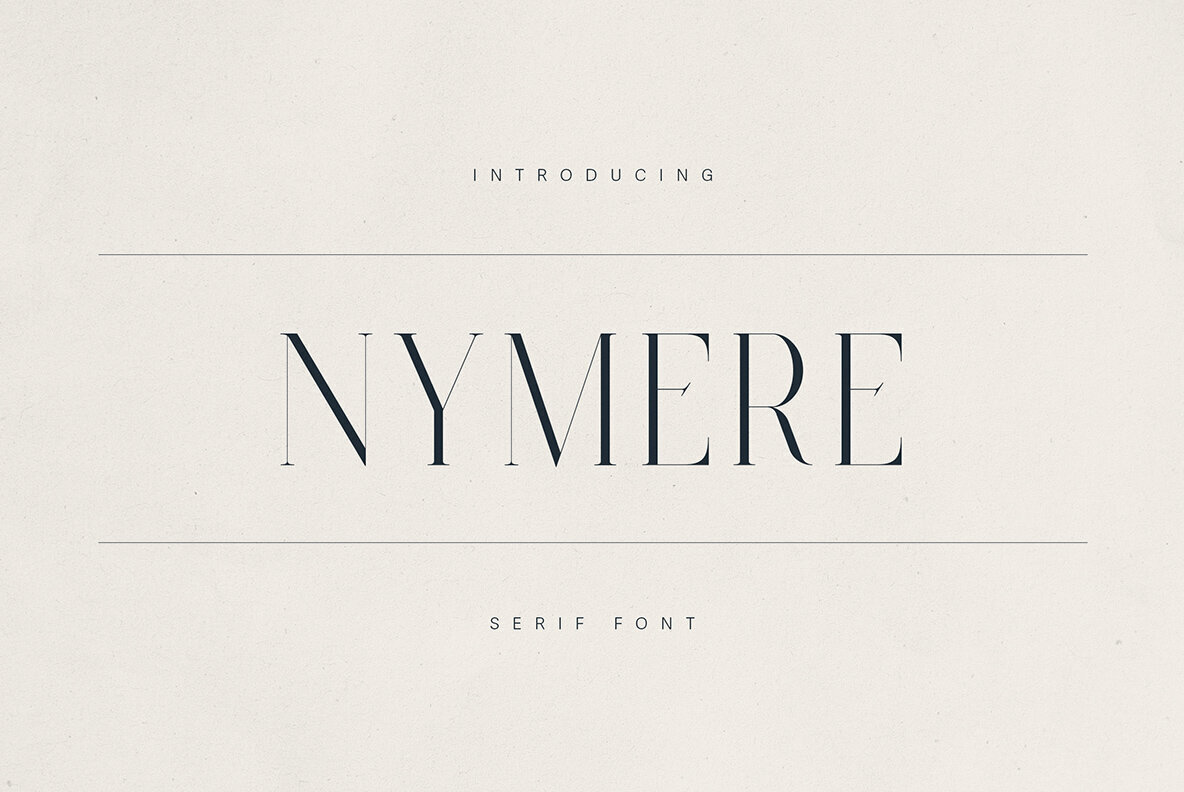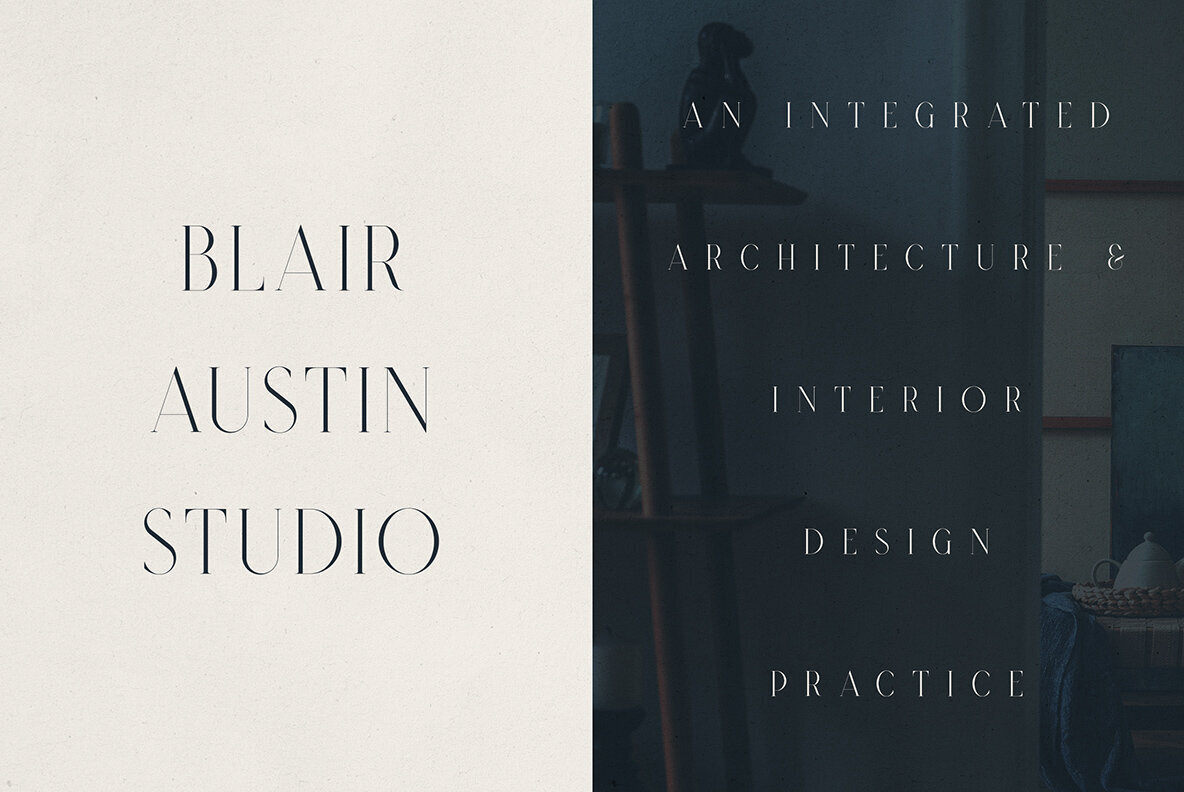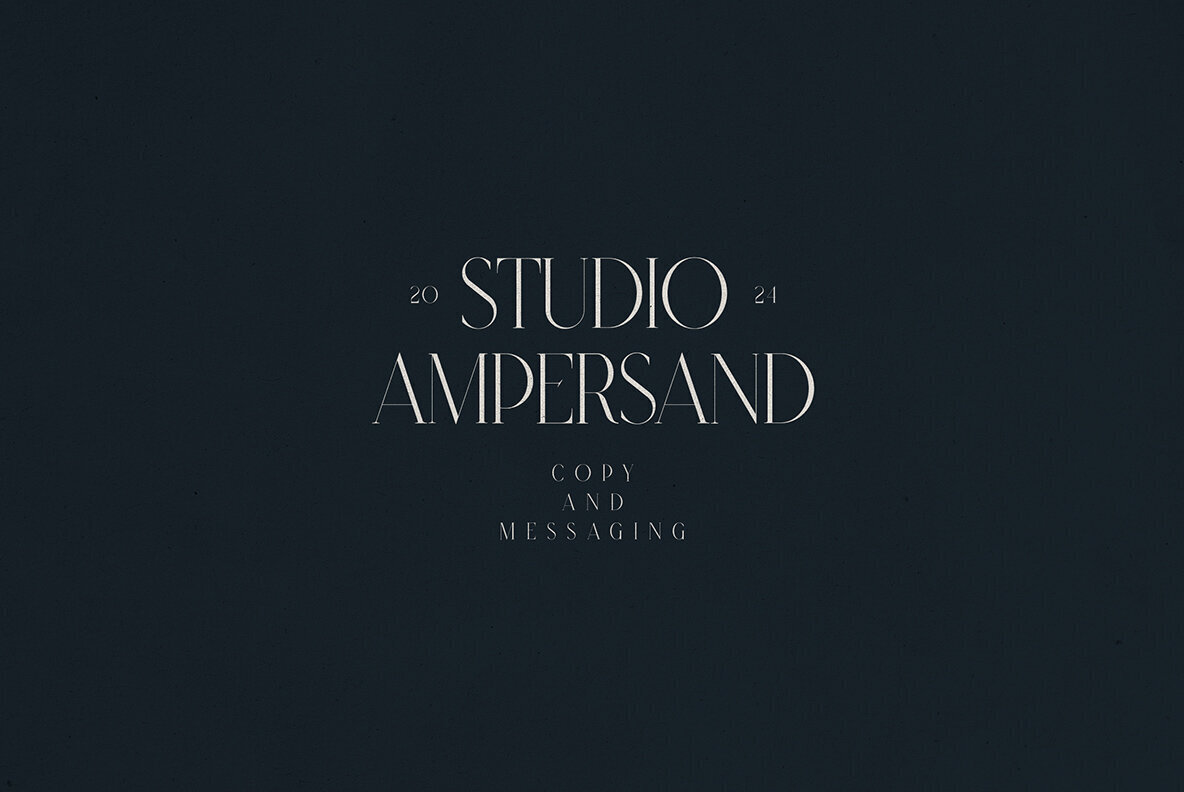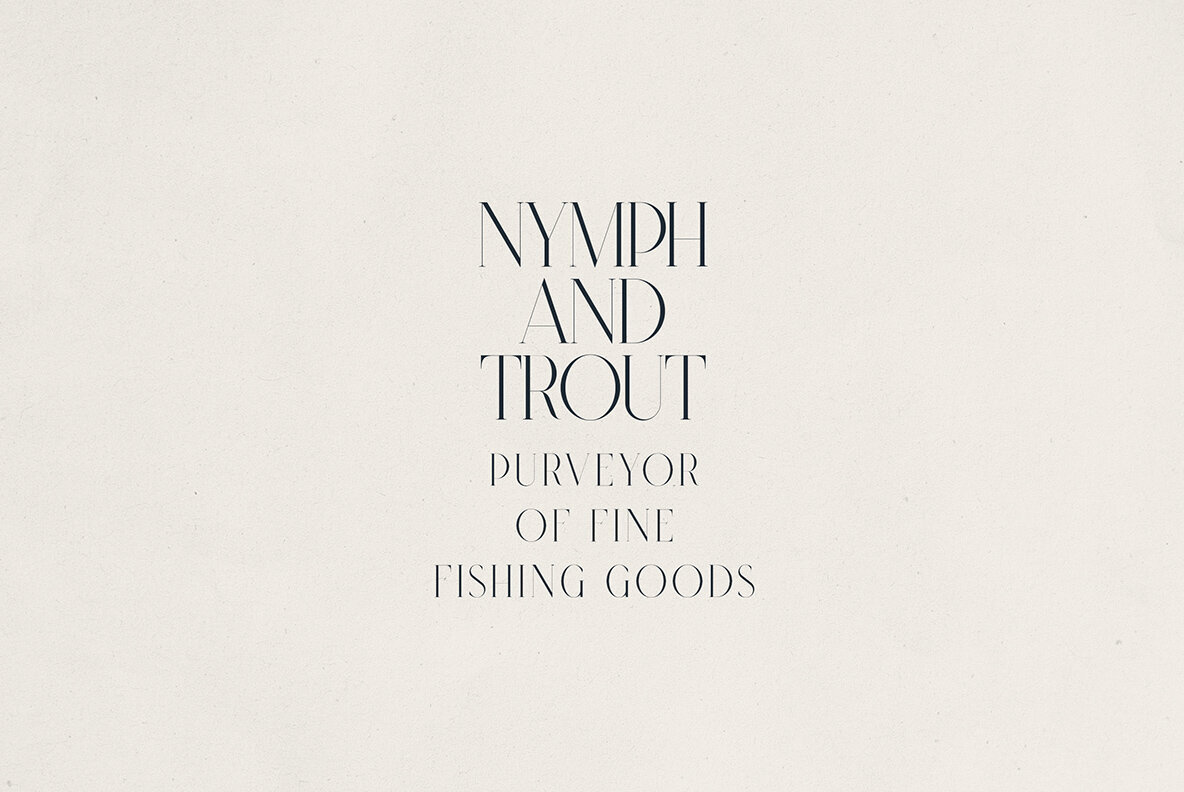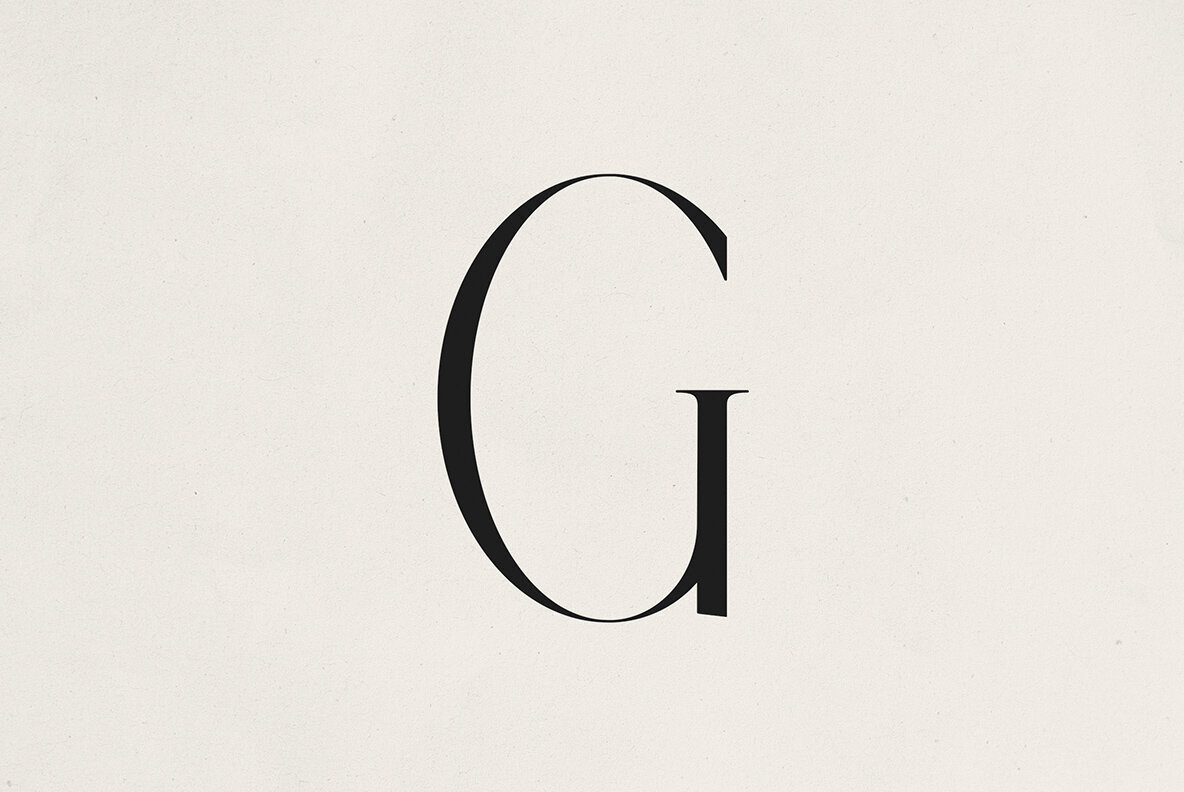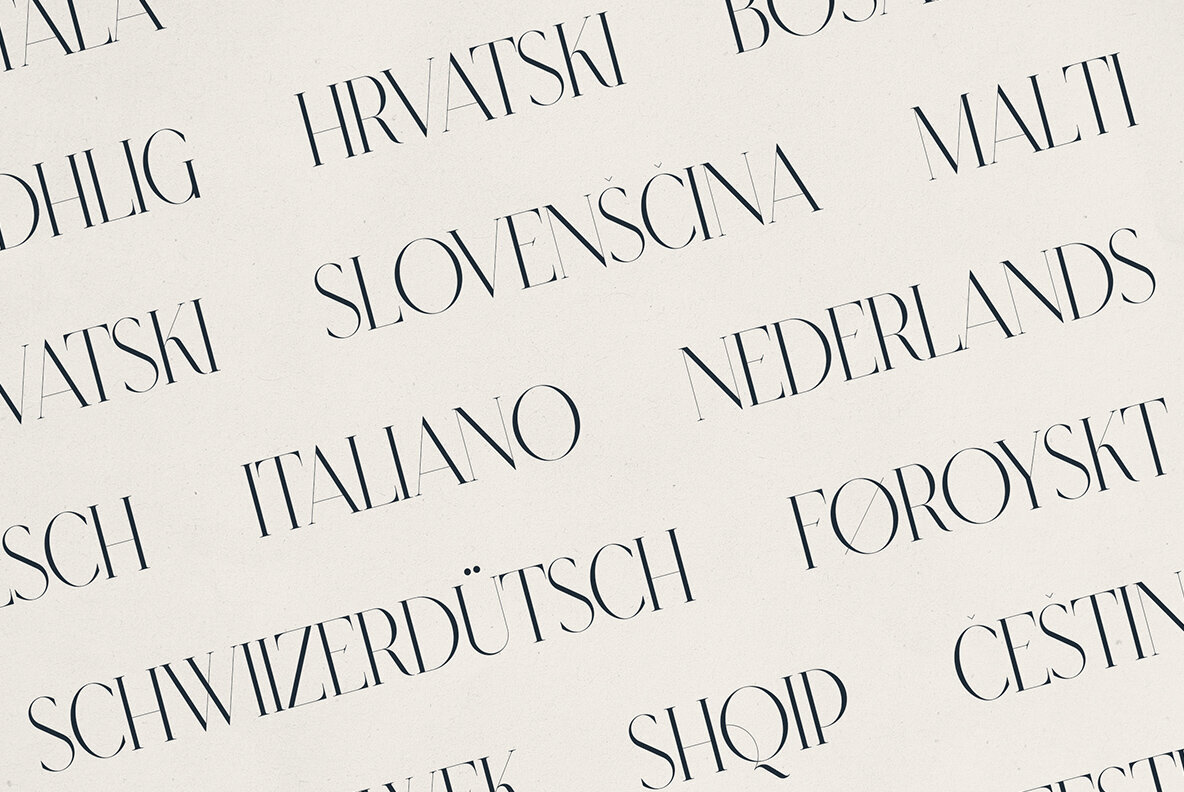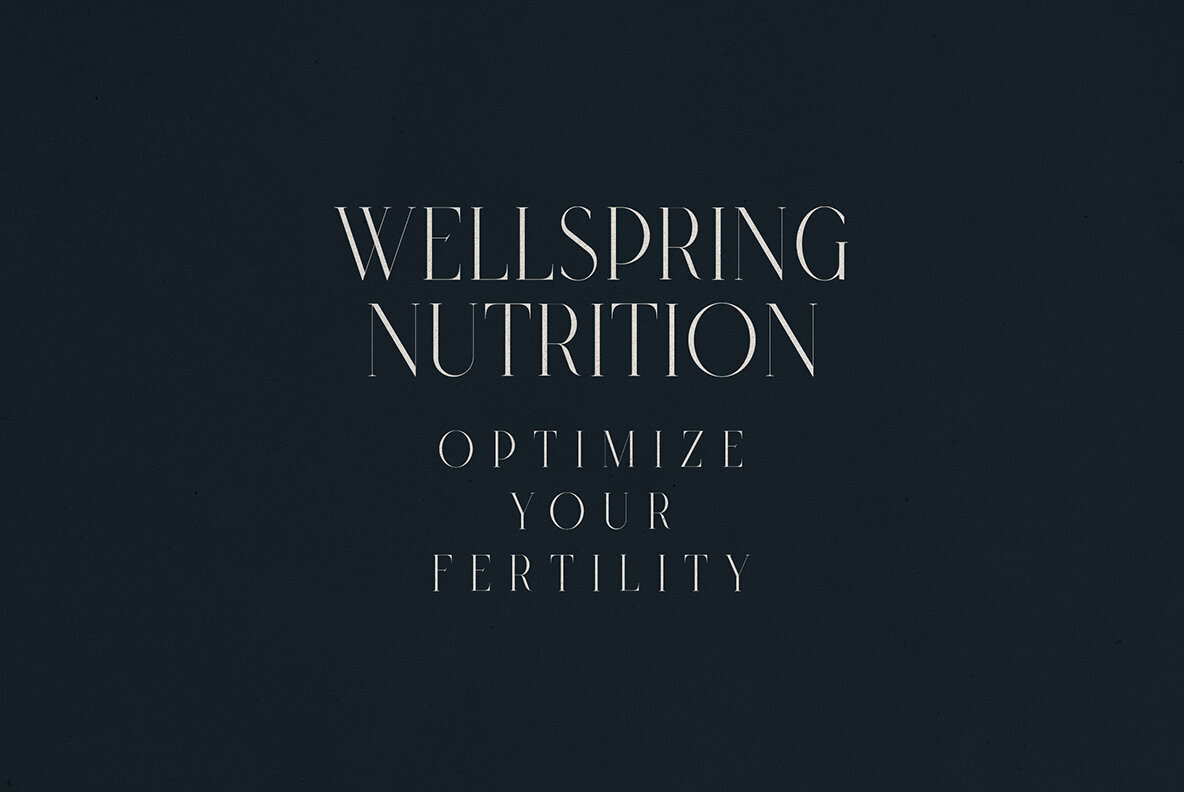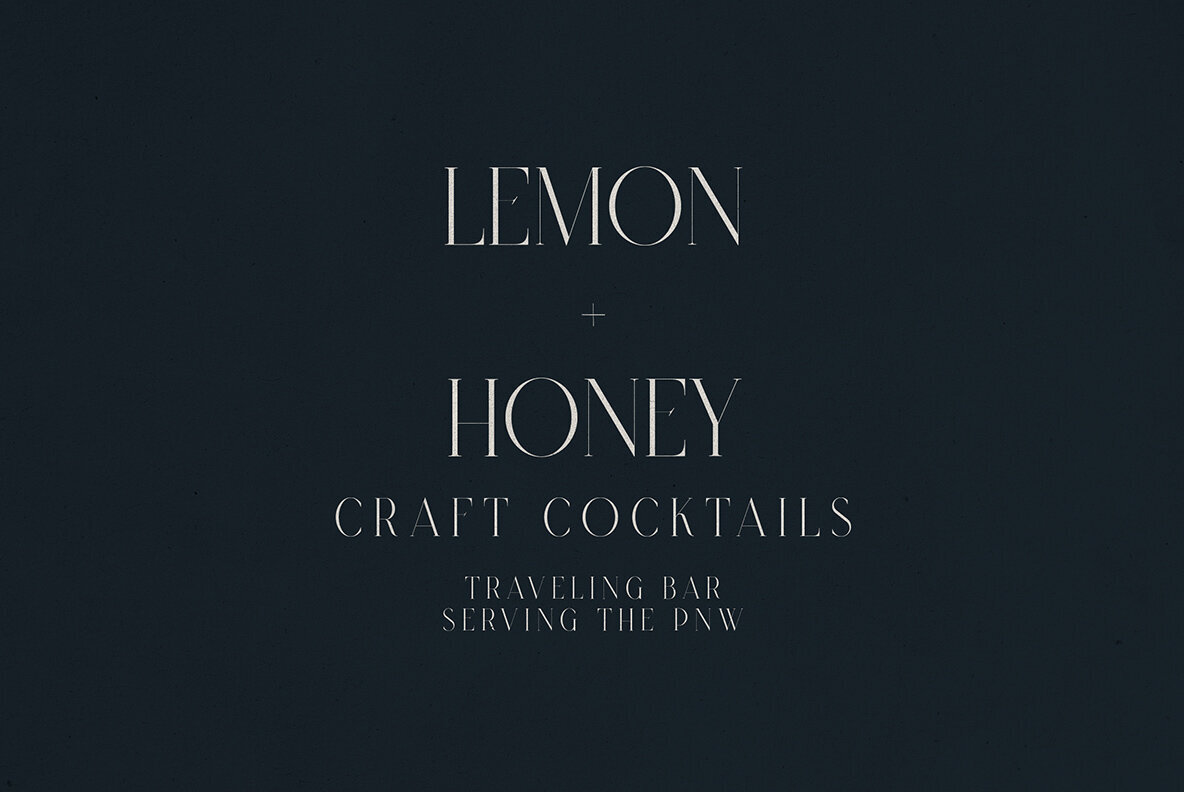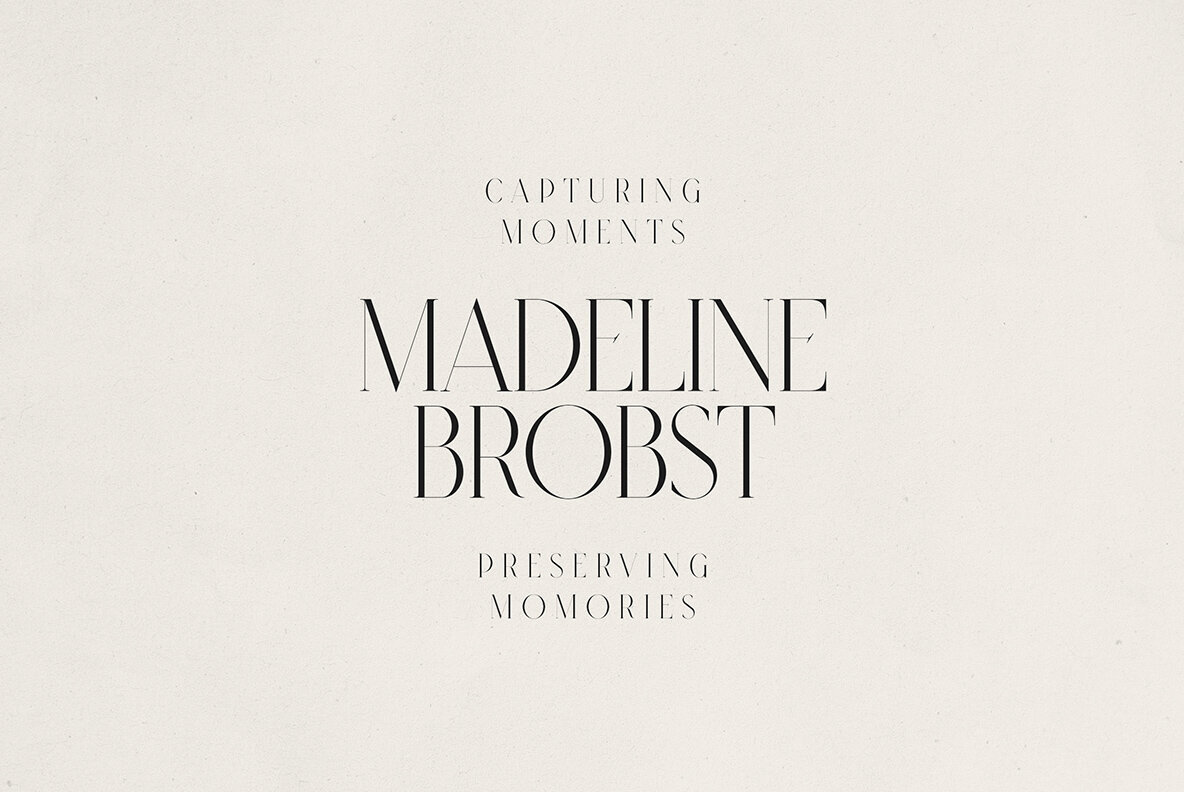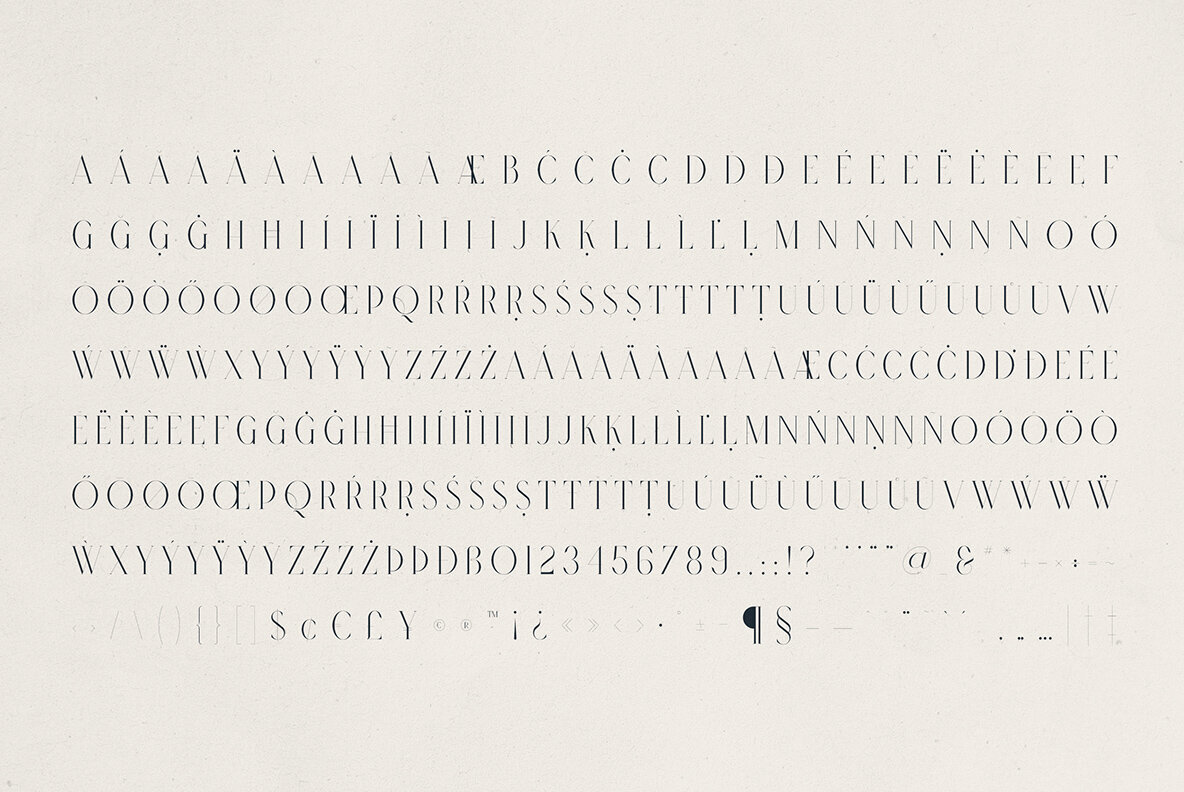
Nymere Font
Nymere Regular
Nymere is a refined serif typeface that brings a balance of classic sophistication and modern edge. High contrast between thick and thin strokes, elongated letterforms, and razor-sharp serifs give Nymere a sense of clarity and understated luxury. Its dramatic vertical rhythm and open spacing make a statement in high-end branding, editorial design, packaging, and upscale web projects. With a tall x-height and sculptural serifs, Nymere delivers visual presence without overwhelming the page. This typeface is built for impactful headlines, elegant logos, and polished typographic systems, making it a standout choice for design professionals seeking a distinctive serif solution. Afrikaans, Albanian, Basque, Breton, Cornish, Czech, Danish, Dutch, English, Estonian, Faroese, Finnish, French, Galician, German, Hungarian, Indonesian, Irish, Italian, Latvian, Lithuanian, Luxembourgish, Maltese, Norwegian Bokmål, Norwegian Nynorsk, Polish, Portuguese, Romanian, Scottish Gaelic, Slovak, Somali, Spanish, Swahili, Swedish, Swiss German, Turkish, Welsh, and many more.Nymere – Modern High-Contrast Serif Typeface